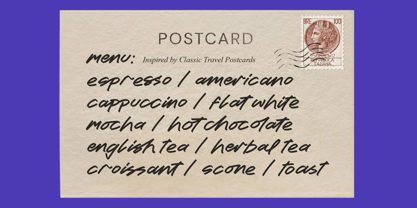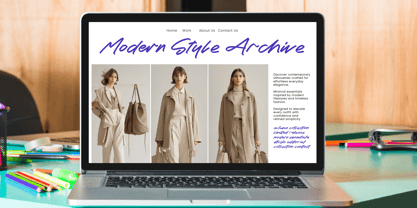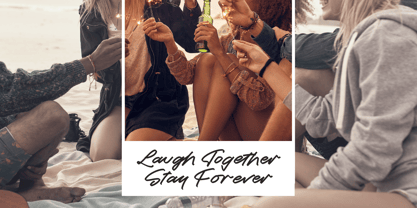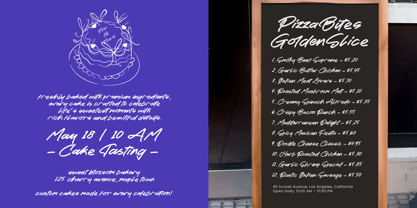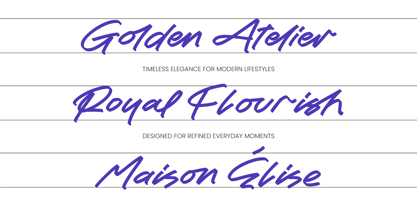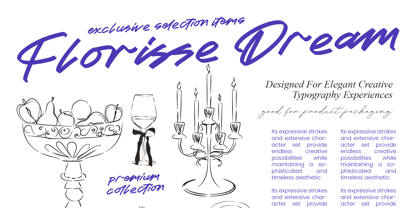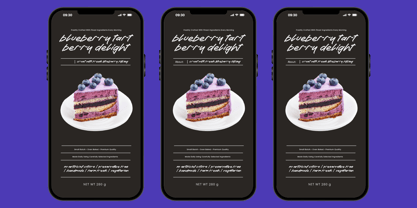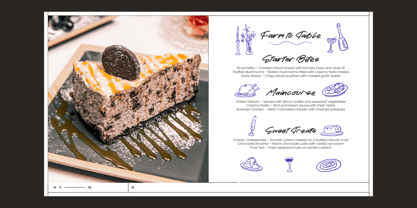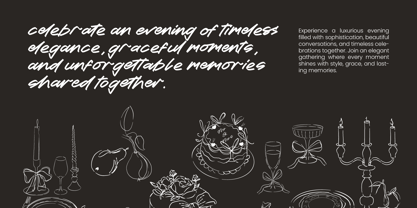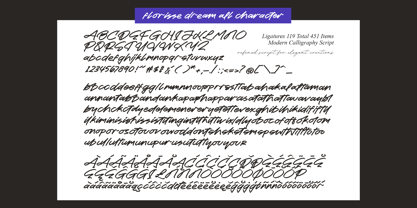
Florisse Dream
La familia tipográfica Florisse Dream fue diseñada por Heru Utama Putra y publicada por Stylishtype Studio. Florisse Dream contiene 2 estilos y opciones de paquete familiar. Más información sobre esta familia
Elevate your creative projects with the organic elegance of Florisse Dream - Modern Calligraphy Script, a typeface designed to capture the essence of expressive hand-lettering. This premium font features fluid, rhythmic strokes that bridge the gap between contemporary sophistication and artistic flair. Its sophisticated aesthetic ensures that every word conveys a sense of bespoke craftsmanship, making it a standout choice for designers seeking a human touch in their digital compositions.